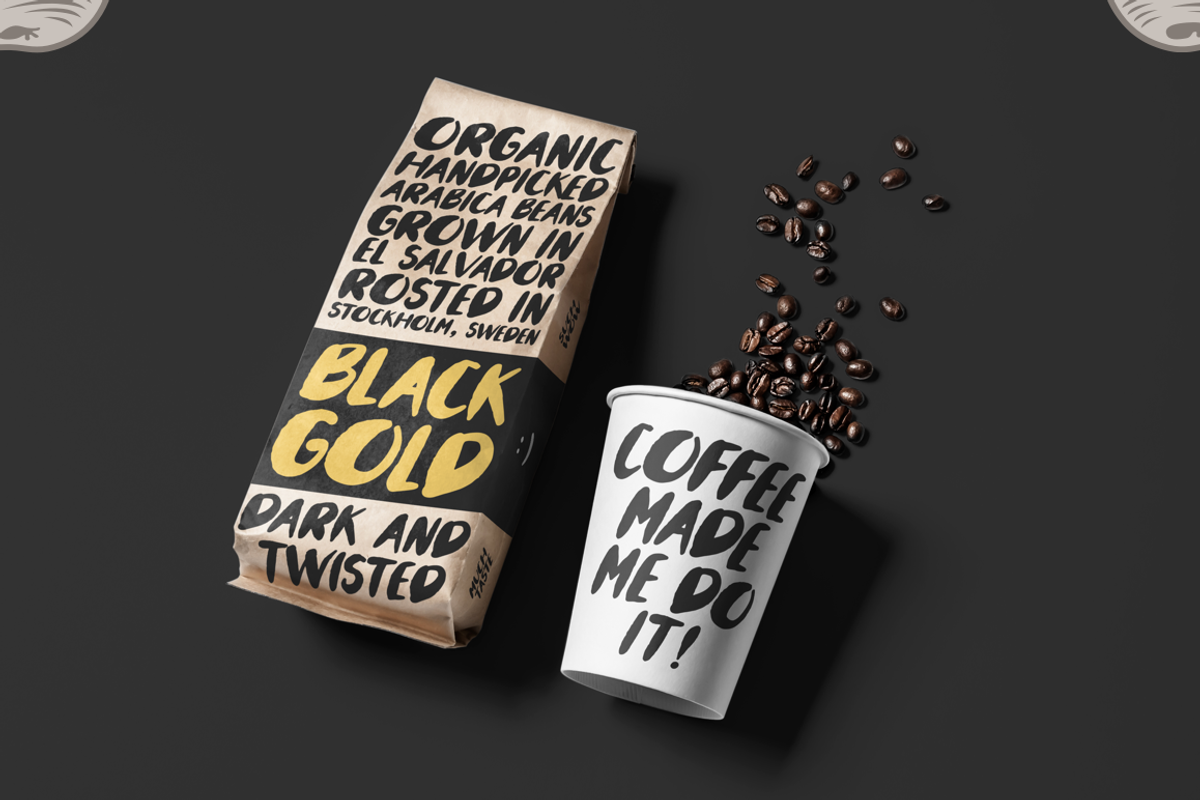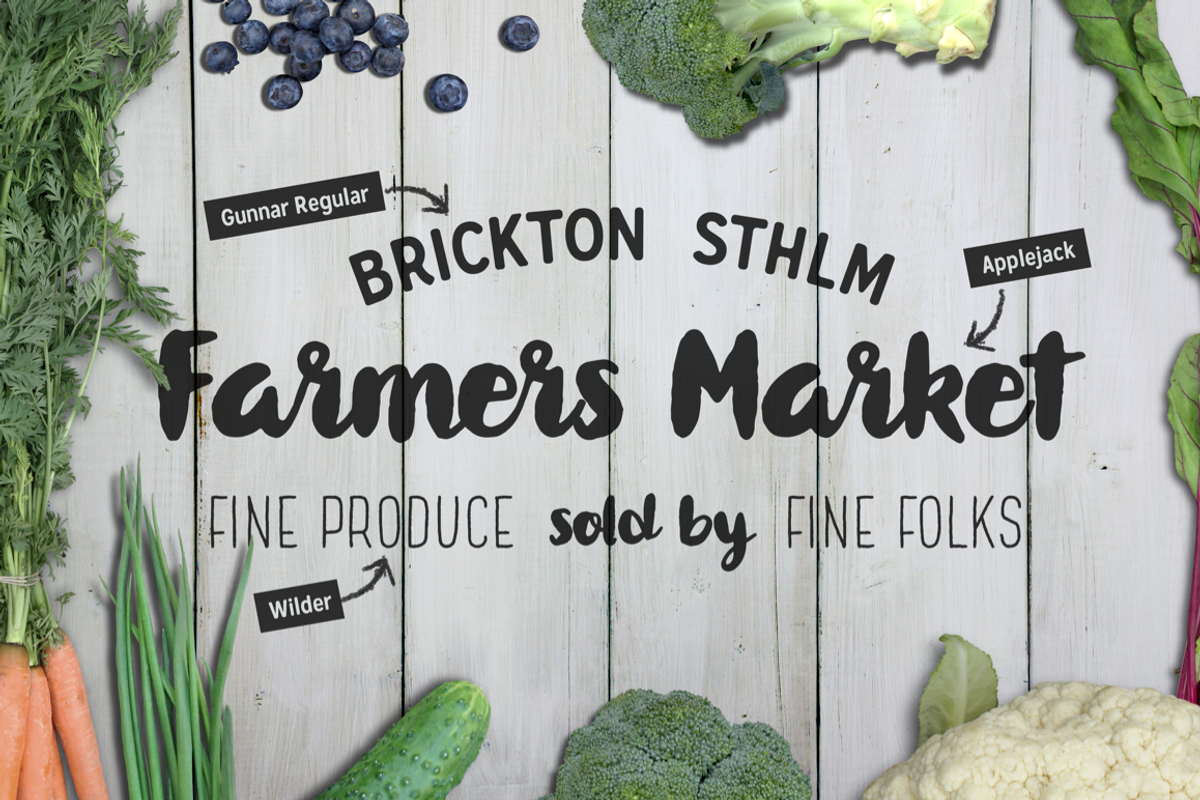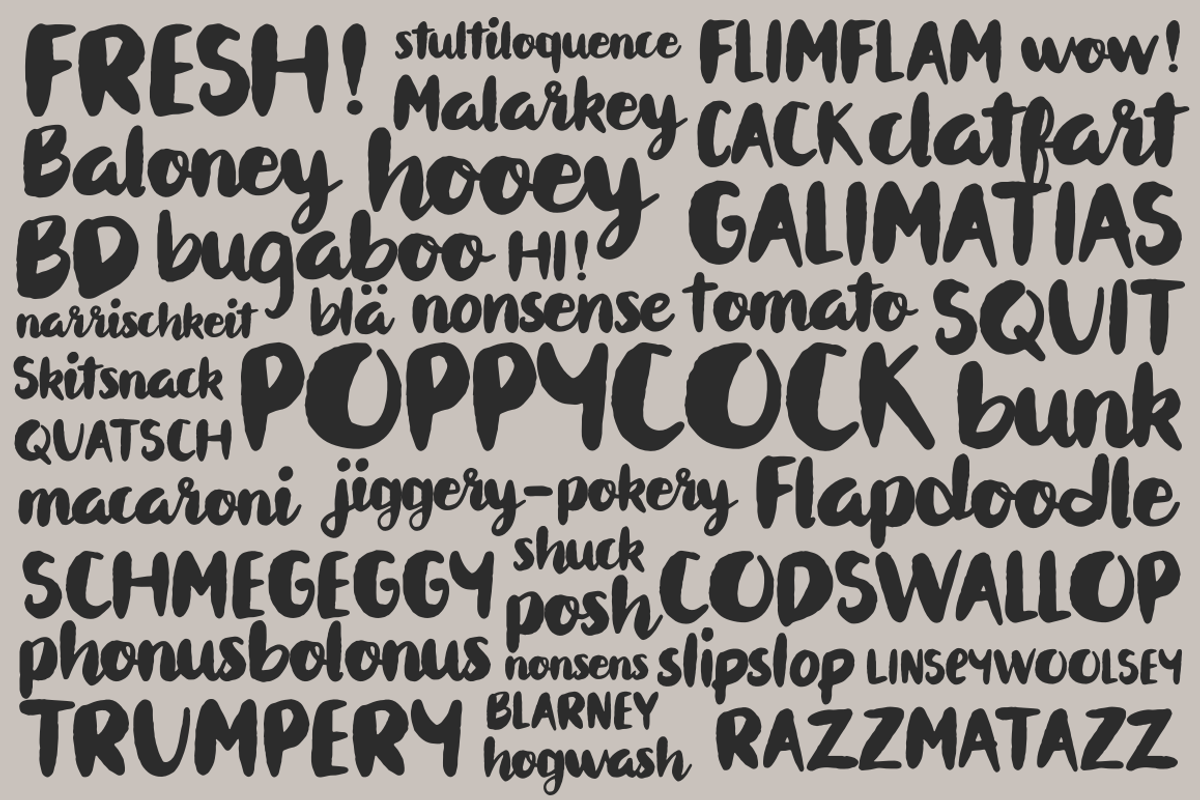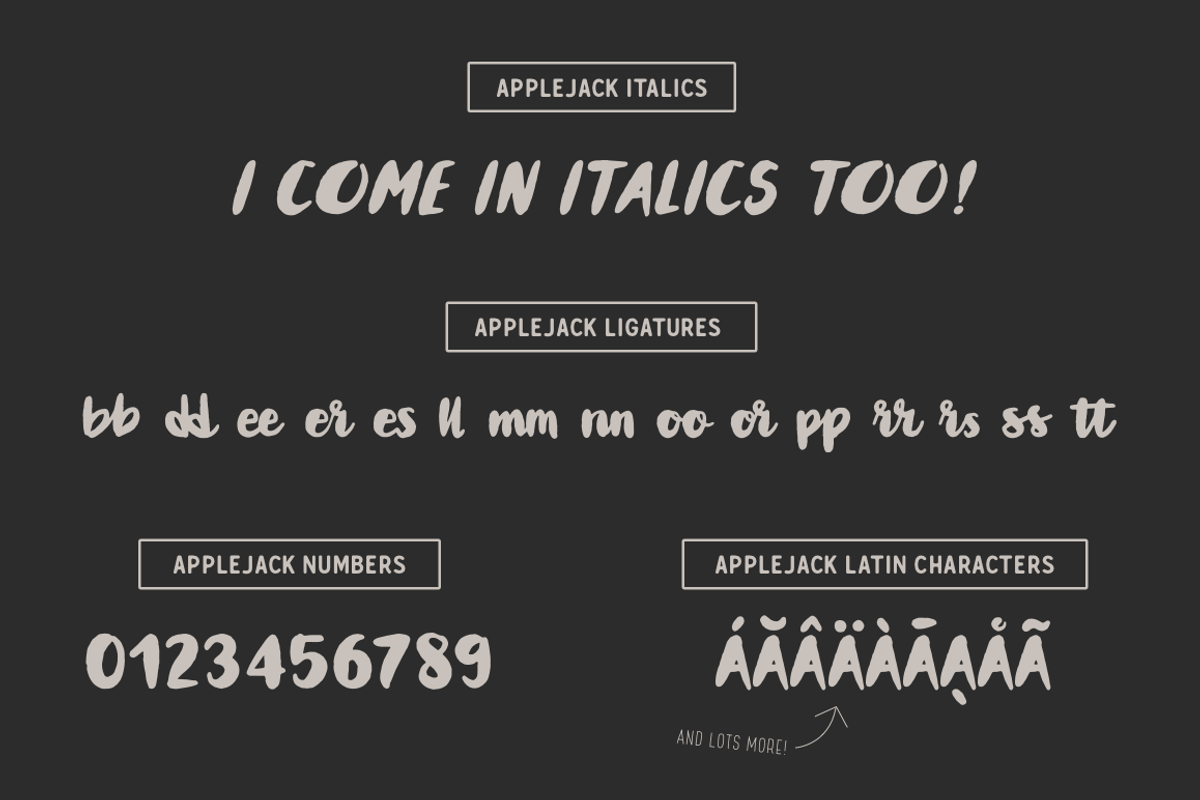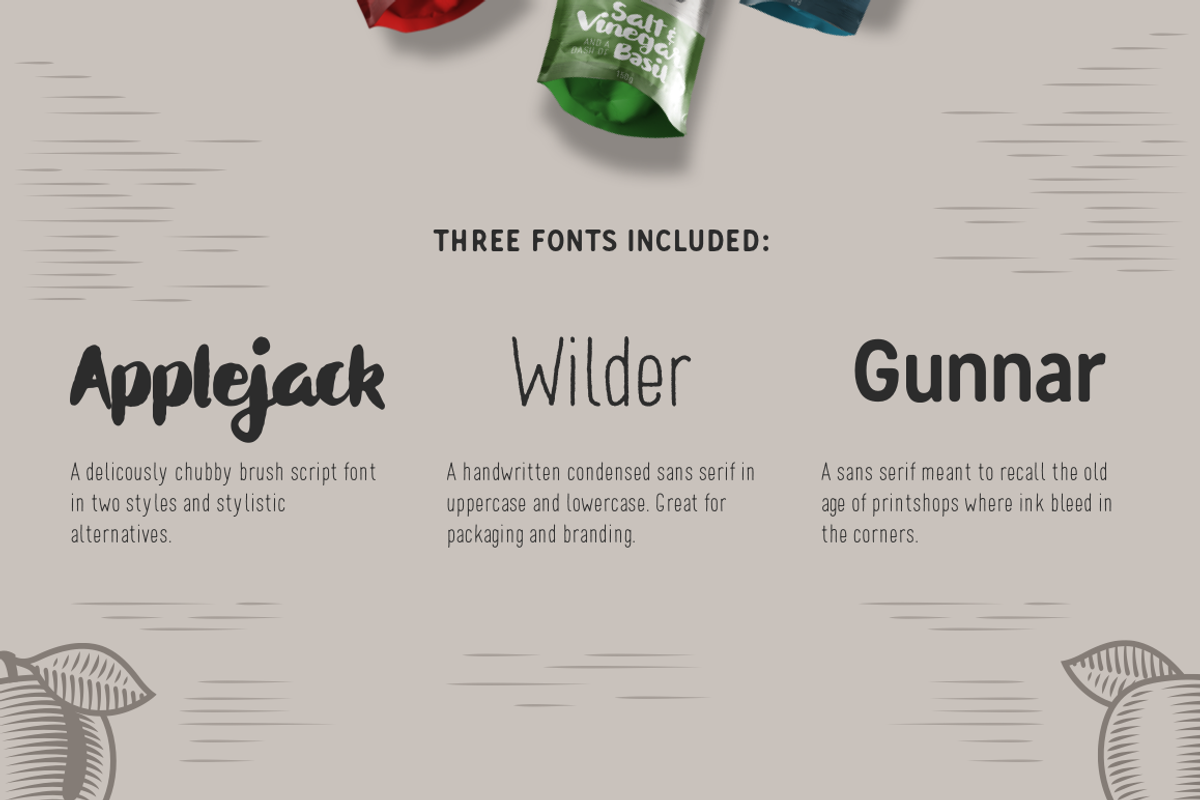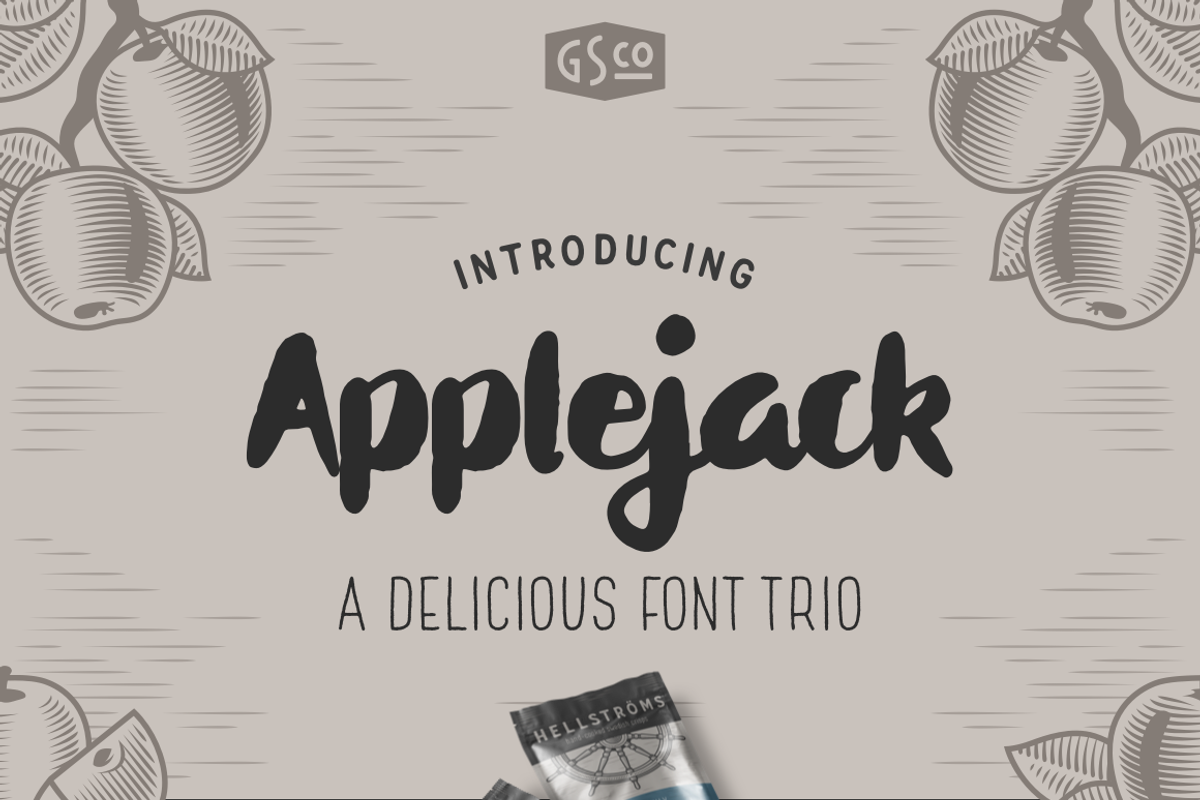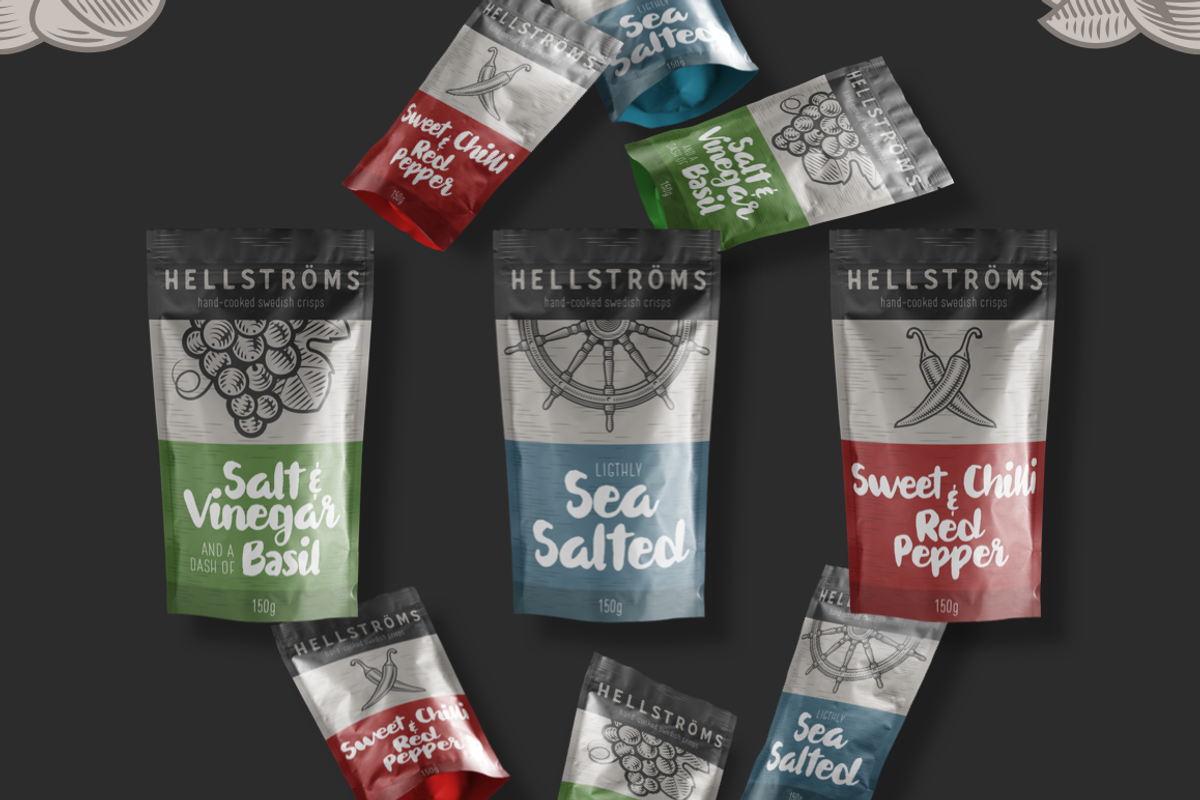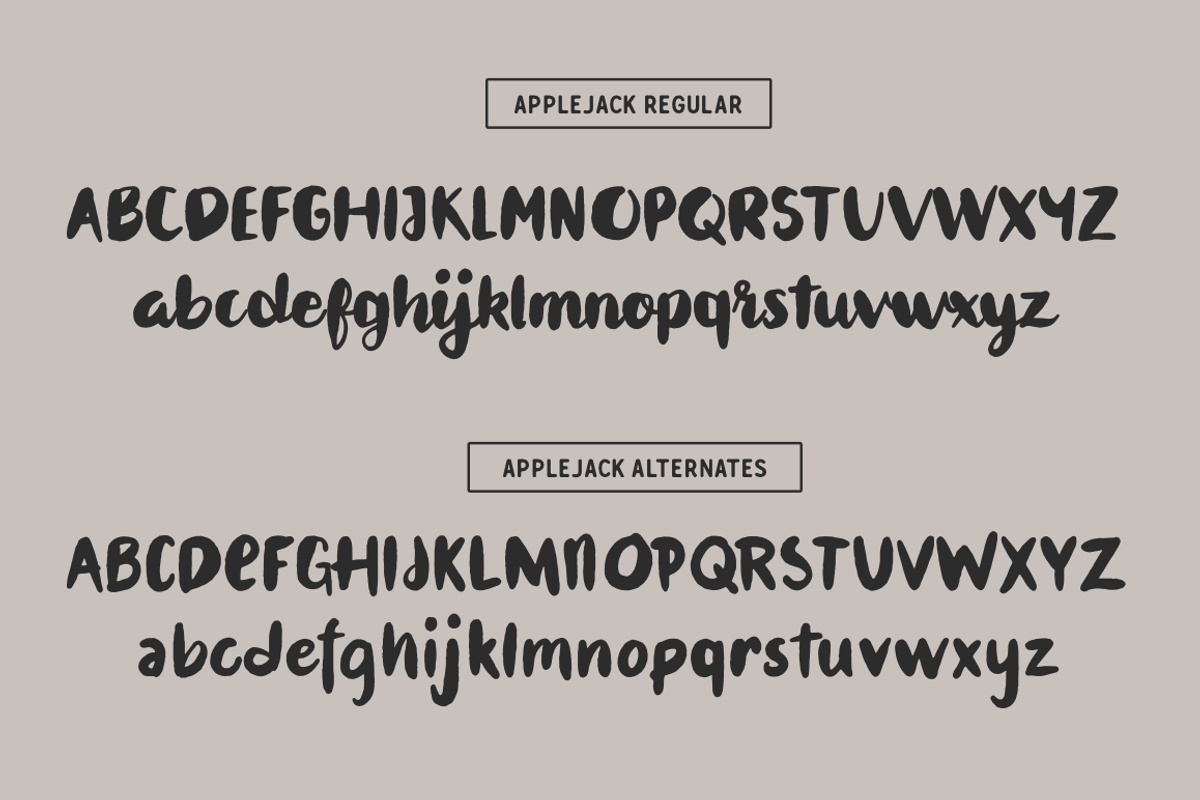
Applejack - A brush font trio
Applejack - A brush font trio by Great Scott! is a font selected for branding, posters, packaging, typography.
- EXTRA SET OF ALTERNATE LETTERS : To add some authenticity to your designs, Applejack brush script comes with a full set of alternate lowerca
- A chubby brush script with uppercase, lowercase, stylistic alternates and international support.
- For those with opentype capable software, Applejack has also been coded to include a comprehensive set of double letter ligatures, and of co
- Applejack Regular
- Applejack Italic
- Gunnar Regular
- Wilder Regular